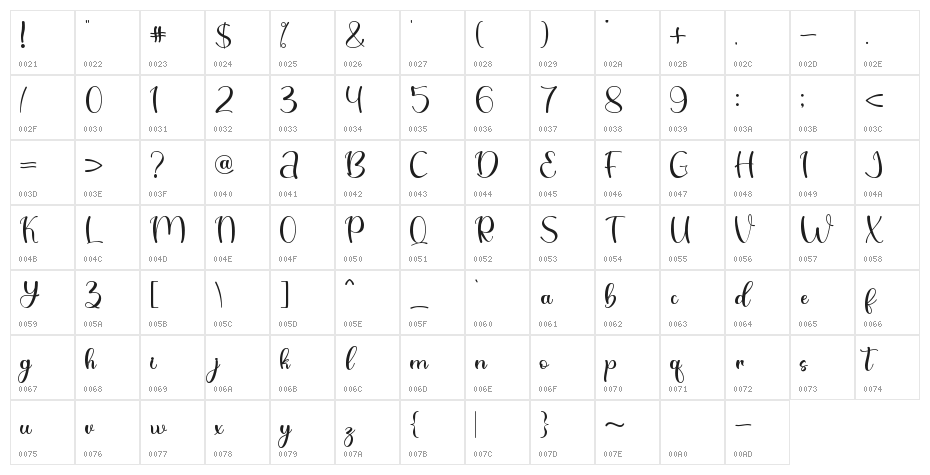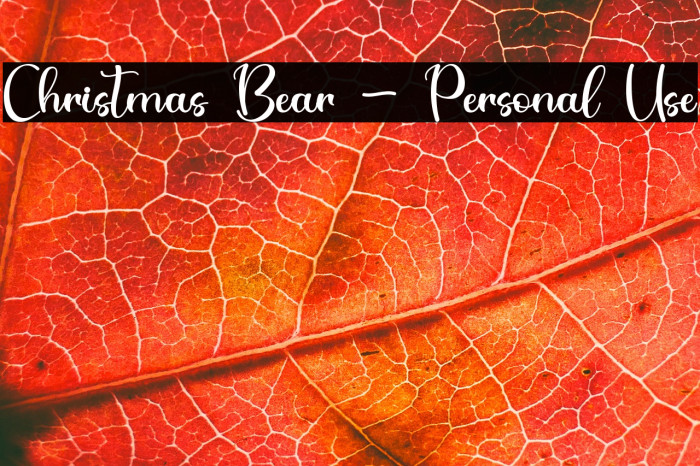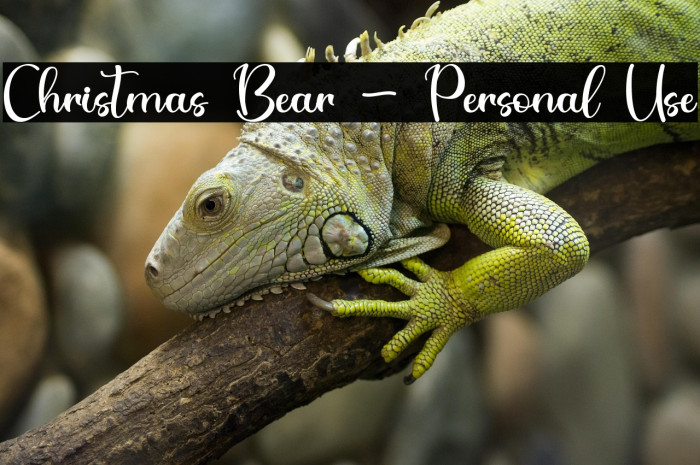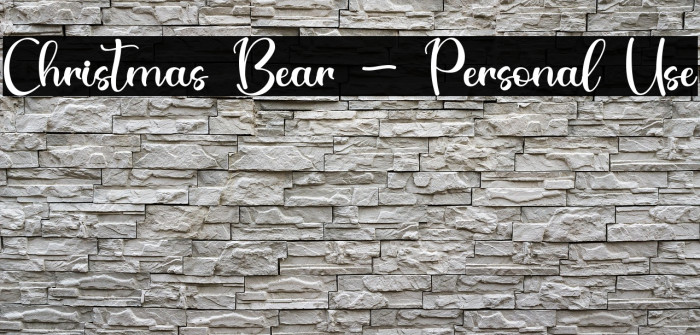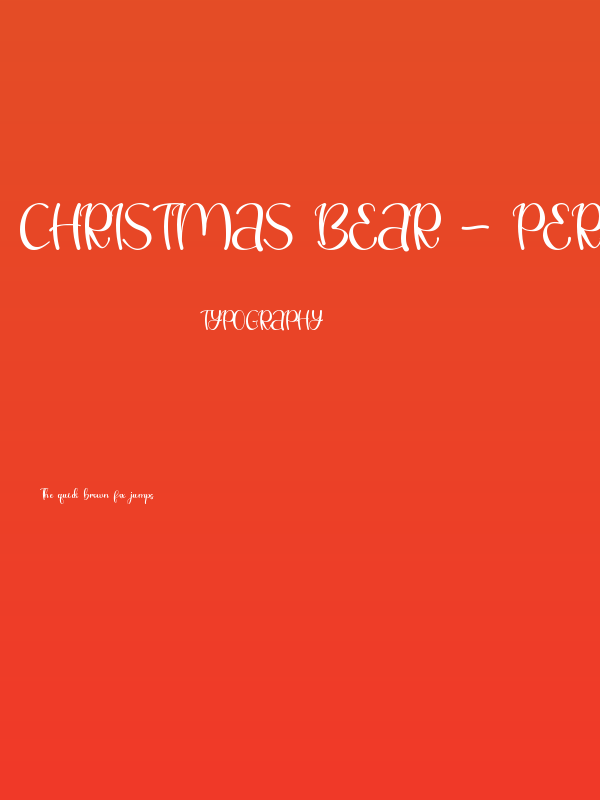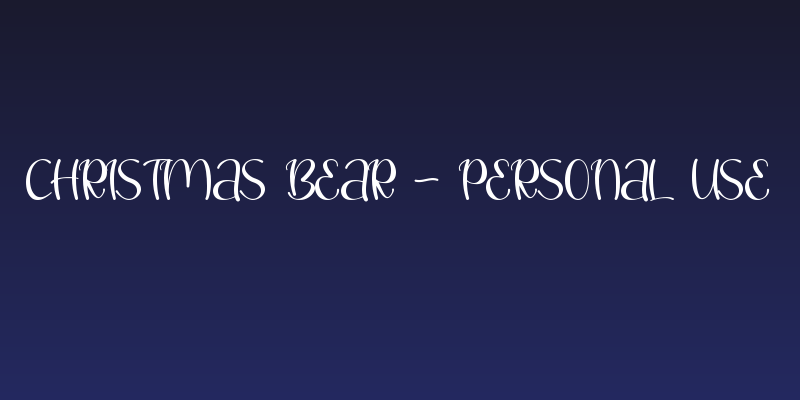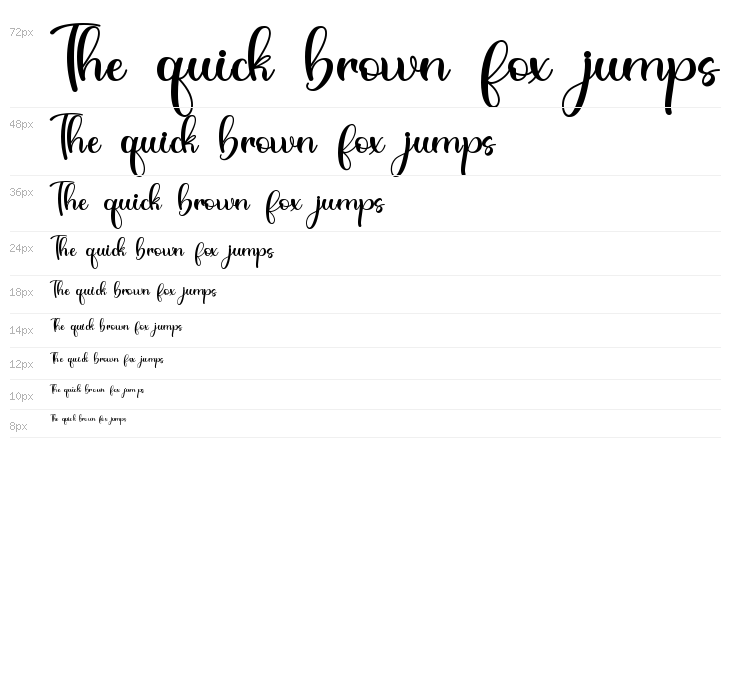
Christmas Bear - Personal Use Font
Christmas Bear - Personal Use Description
This font features a playful and whimsical script style, characterized by its flowing, cursive letters that exude a sense of elegance and charm. The uppercase letters are bold and slightly exaggerated, with unique loops and swirls that add a decorative flair. The lowercase letters maintain a consistent flow, with smooth curves and a slightly condensed form, enhancing readability while retaining a stylish appearance. Numbers are crafted with the same artistic touch, ensuring they blend seamlessly with the alphabet. Special characters are thoughtfully designed, complementing the overall aesthetic. This font is perfect for projects that require a touch of sophistication and creativity.
| Use Case | Logos, Invitations, Decorative Text |
| Proposed Projects | Ideal for holiday cards, invitations, branding, and decorative signage. |